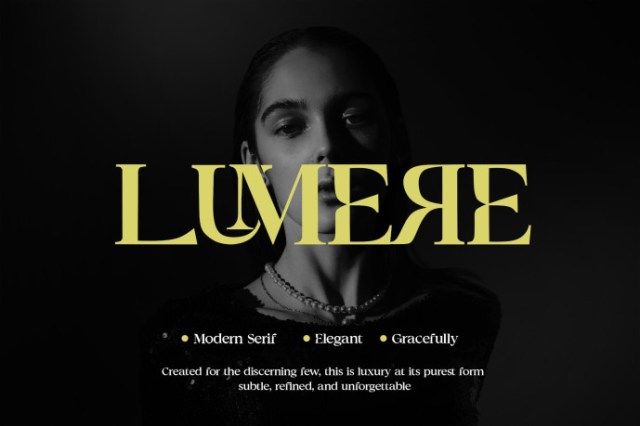
Lumere Modern Serif Font
Lumere Modern Serif Font designed with sophistication and elegance at its core. Featuring graceful curves and refined details, Lumere evokes a sense of timeless luxury perfect for upscale branding, fashion editorials, high-end packaging, and refined digital or print design. Its stylish character makes it ideal for those seeking to communicate beauty, poise, and exclusivity in their projects.